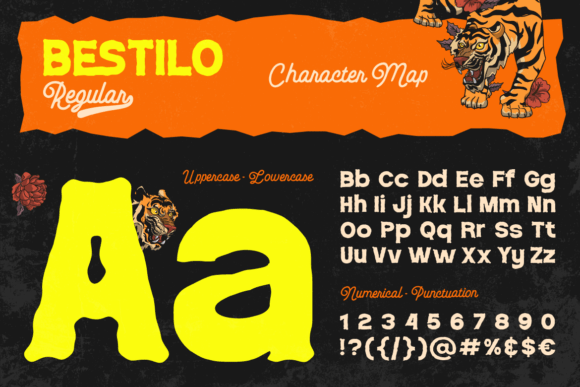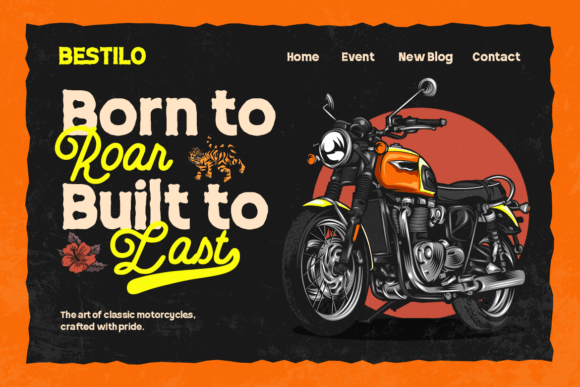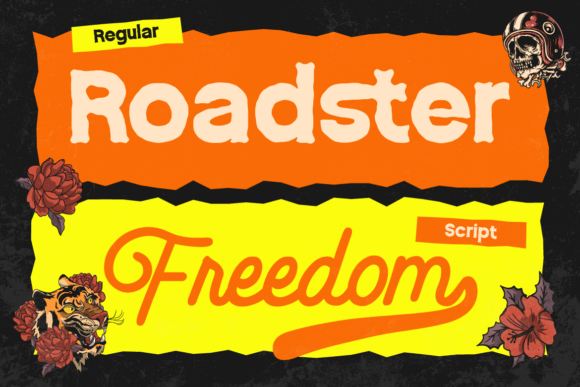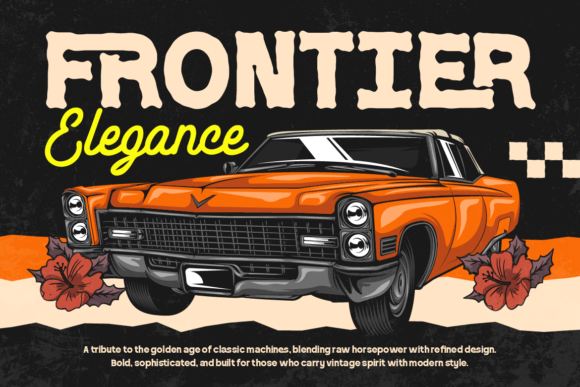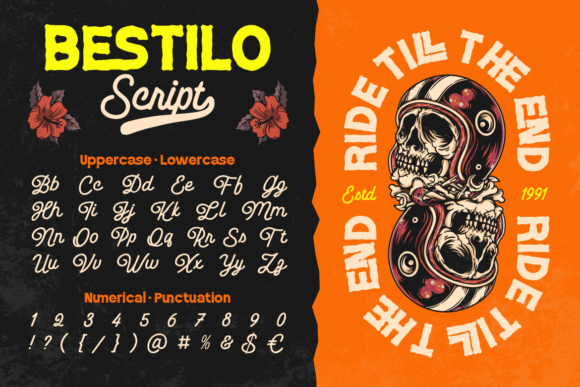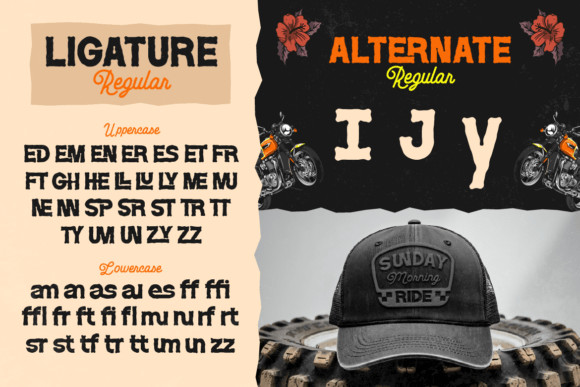
Adding a Touch of Vintage Charm to Your Designs
You’ve just landed on the perfect illustration job for a craft brewery, and you’re itching to create a label that captures the essence of their unique spirit. As you scroll through your font library, you stumble upon the perfect combination of bold and elegant – the Bestilo Signature Duo Font. This stylish duo-style font seamlessly blends vintage energy with smooth, hand-written charm, offering a one-of-a-kind aesthetic that’s sure to grab attention.
As a designer, you know that finding the right font can make all the difference in elevating your designs to the next level. The Bestilo Signature Duo Font is a valuable addition to any design toolkit, providing a complete, cohesive design solution that’s perfect for a wide range of applications – from brewery labels to custom apparel and vintage-themed branding.
Bestilo Signature Duo Font Key Features
- Unique Characteristics: This font is designed to be a modern, elegant, and professional script font, ideal for creating a unique and personalized look for various design projects.
- Language Support: Supports a wide range of languages, including Latin, Cyrillic, and Greek alphabets, making it a versatile choice for global design projects.
- Number of Glyphs: Contains over 500 glyphs, including standard Latin characters, punctuation marks, and special characters, providing a comprehensive set of symbols for design applications.
Bestilo Signature Duo Font Review
Overall, I’m impressed with the Bestilo Signature Duo Font. It’s a versatile, high-quality font that’s perfect for designers looking to add a touch of sophistication to their projects. ✨
- It’s incredibly versatile and can be used for a wide range of projects, from business cards to magazine layouts.
- The font is highly customizable, with a range of weights and styles to choose from.
- The font is well-suited for both digital and print applications.
One of the standout features of the Bestilo Signature Duo Font is its elegant, yet modern design. It’s perfect for designers who want to create a professional and polished look without sacrificing style. ✨
- The font may not be suitable for extremely large-scale projects, as it can become difficult to read at very small sizes.
Overall, I’m very impressed with the Bestilo Signature Duo Font. While it may have a few limitations, its versatility and high-quality design make it a great choice for designers looking to add a touch of sophistication to their projects. ⚠️
The Bestilo Signature Duo Font is a versatile and elegant font suitable for various design projects. To get the most out of it, follow these steps:
The Bestilo Signature Duo Font is ideal for:
- Brand logos and marketing materials
- Business cards and resumes
- Editorials and magazine articles